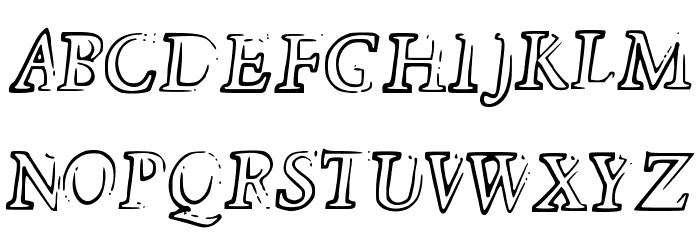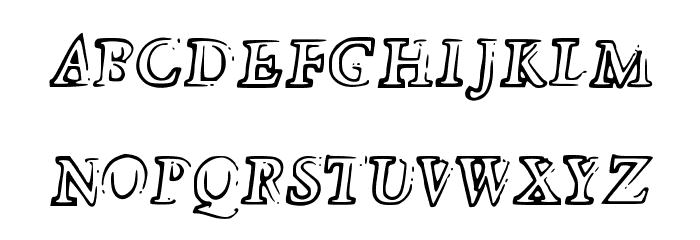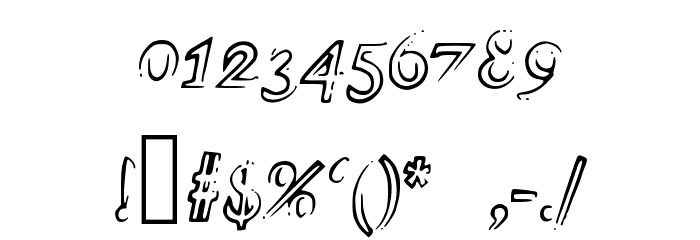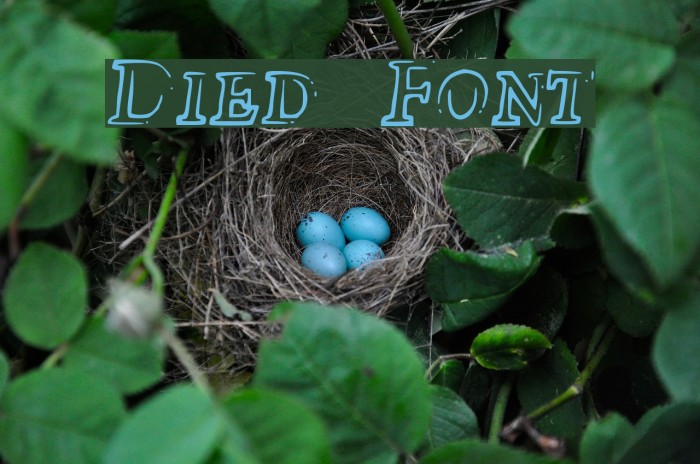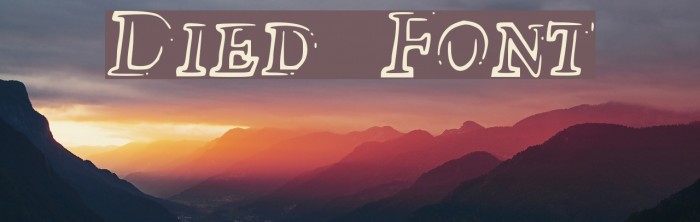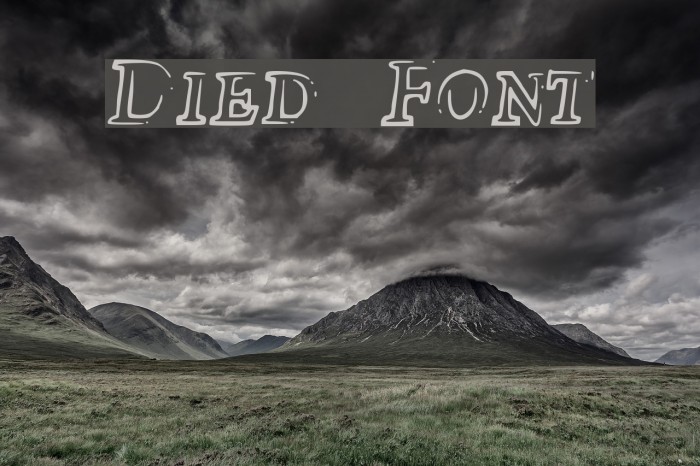
Died Font
This font features a bold and decorative style with a distinct vintage flair. The uppercase letters are characterized by thick strokes and subtle serifs, giving them a strong presence. The lowercase letters maintain a consistent style, with a slightly condensed form that complements the uppercase. Numbers are designed with similar boldness, ensuring readability and uniformity across the set. Special characters are crafted with the same attention to detail, making them suitable for various design applications. The overall appearance is both eye-catching and versatile, ideal for projects that require a touch of elegance and boldness.
A bold, decorative font with a vintage flair and strong presence.
- Proposed Projects: Ideal for branding, poster design, headlines, and any project requiring a bold, vintage aesthetic.
- Overall Style: Vintage